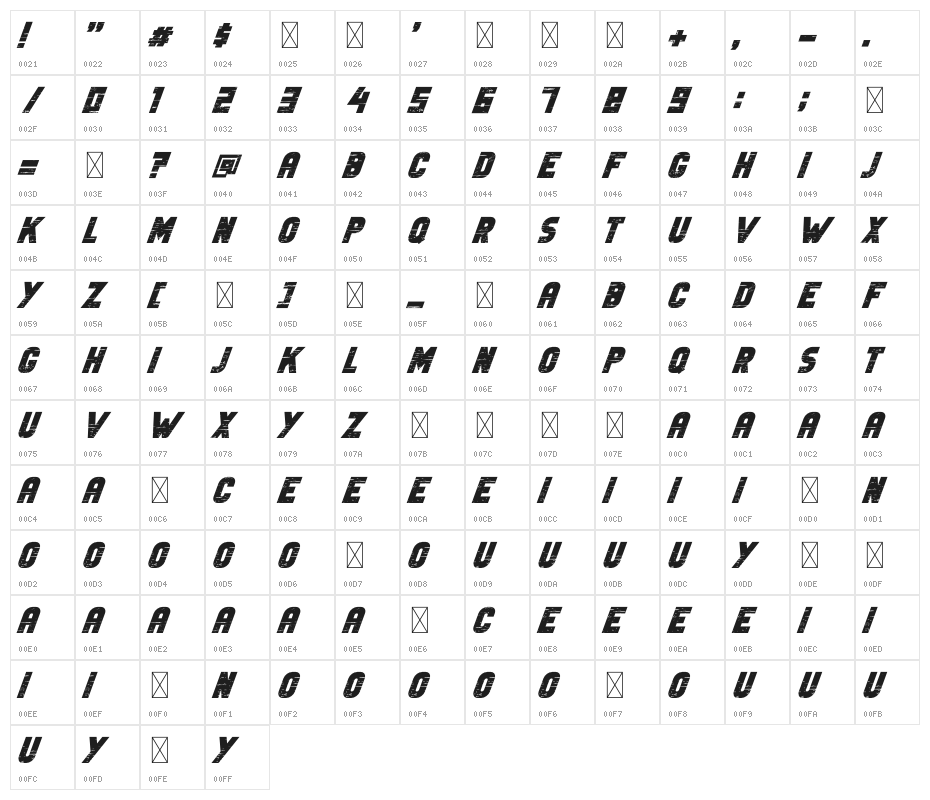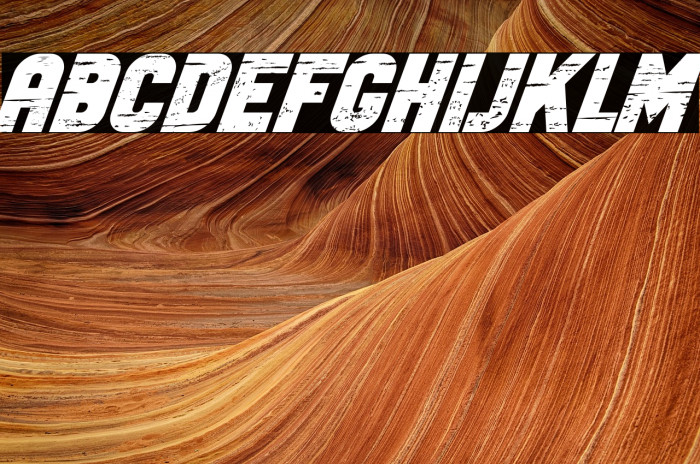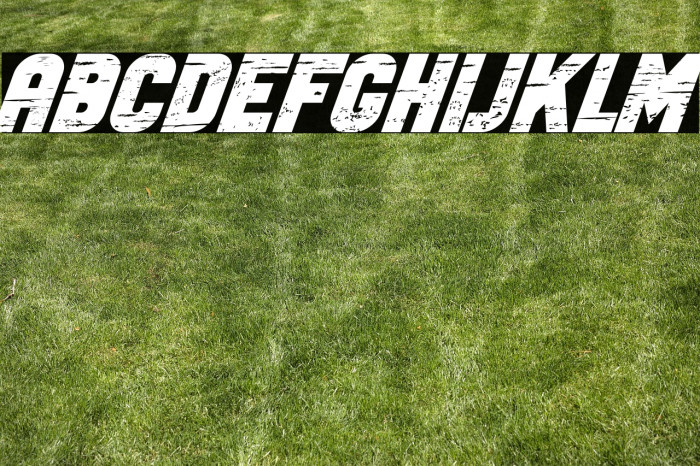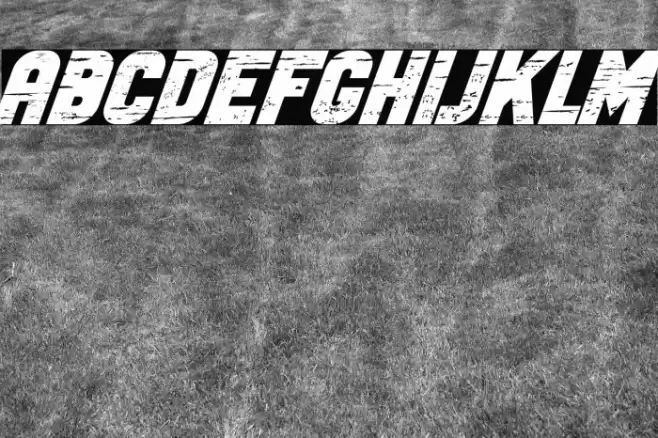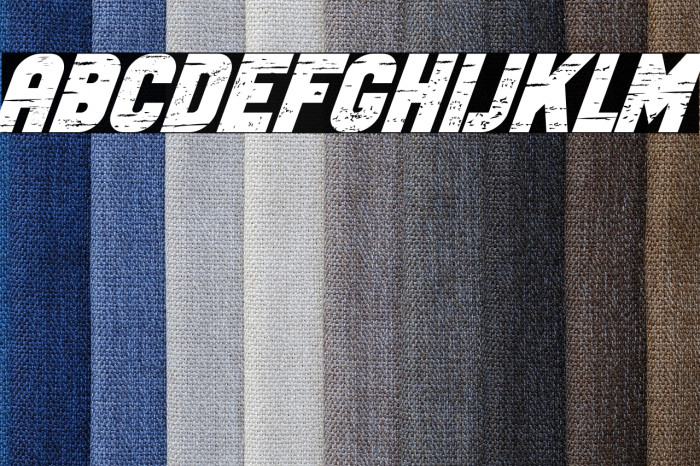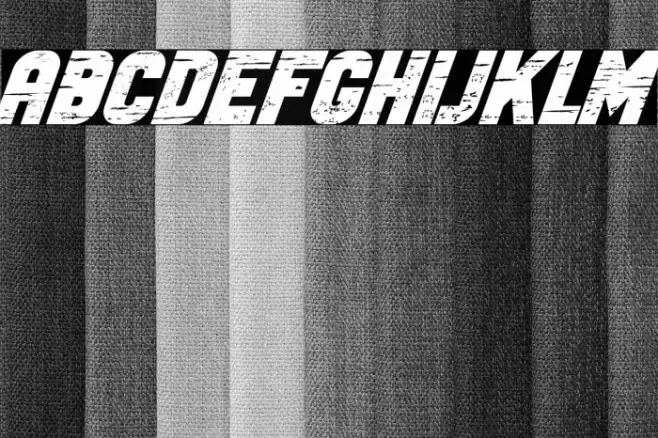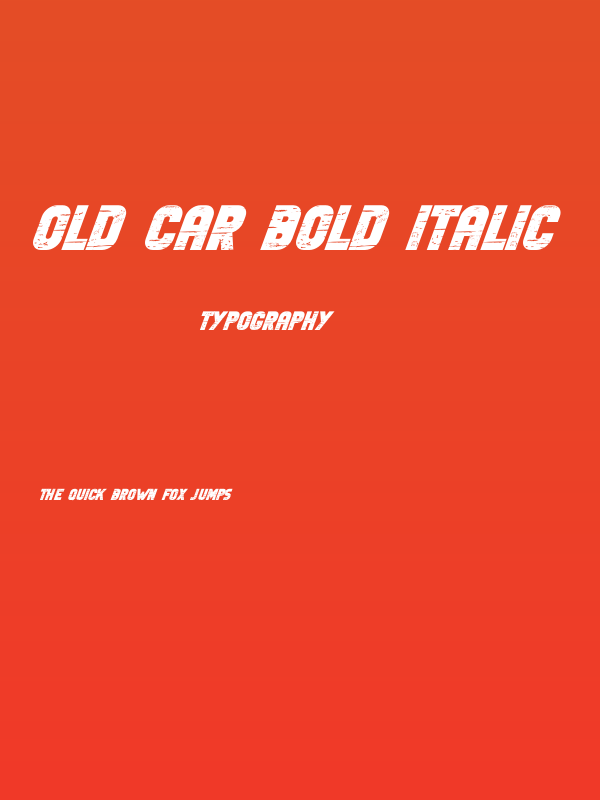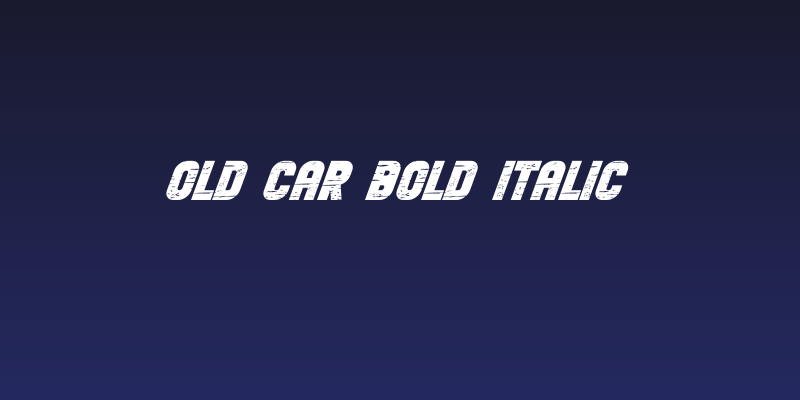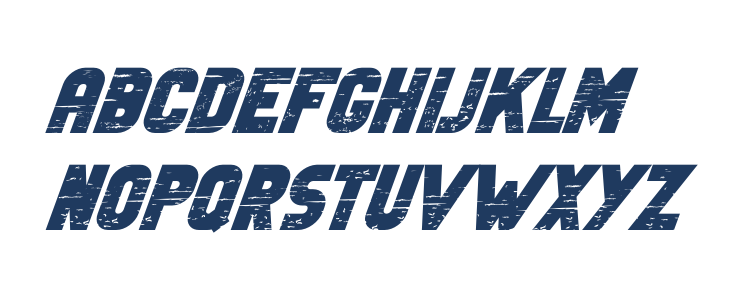
Old Car Bold Italic Font
Old Car Bold Italic Description
This font features a bold and italicized style with a distressed, vintage appearance. The characters are designed with a textured, worn-out look, reminiscent of old signage or retro car graphics. The uppercase and lowercase letters maintain a consistent slant, adding to the dynamic and energetic feel. The numerals and special characters follow the same aesthetic, ensuring uniformity across all glyphs. The font's bold weight and italic style make it stand out, while the distressed texture adds a unique, nostalgic charm.
| Use Case | Logos, Posters, Headlines |
| Proposed Projects | Ideal for retro-themed designs, automotive branding, vintage posters, and any project requiring a bold, nostalgic touch. |